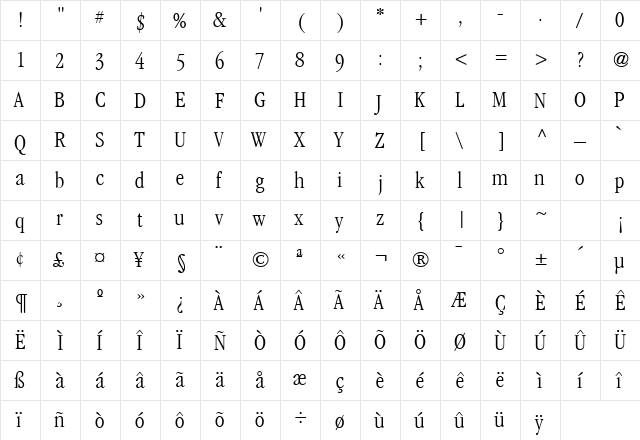
GarryMondrianCond3 LightSH
Design Context for GarryMondrianCond3 Typeface
GarryMondrianCond3 is a composed and adaptable typeface that performs quietly and consistently across a wide range of design contexts. Its slender proportions lend an understated elegance to any composition. Its narrow stance lets it pack a punch even in space-constrained designs.